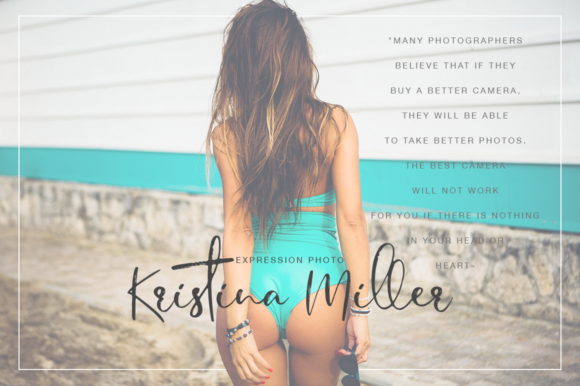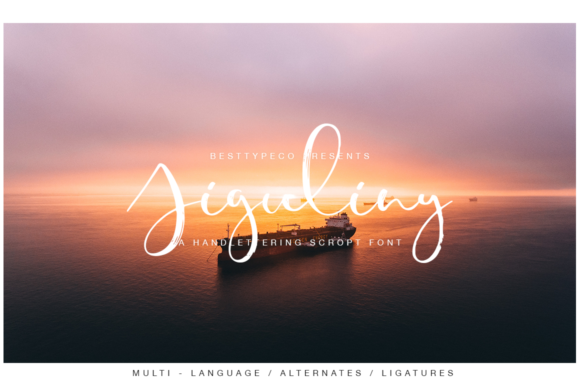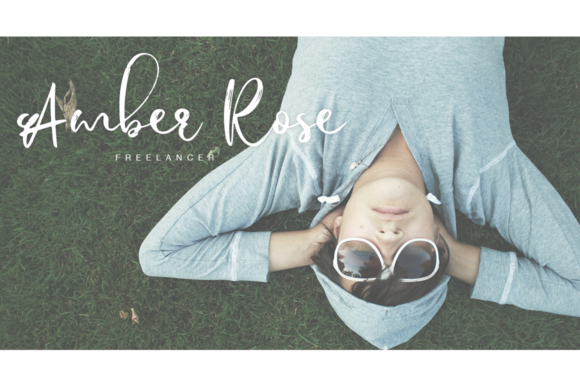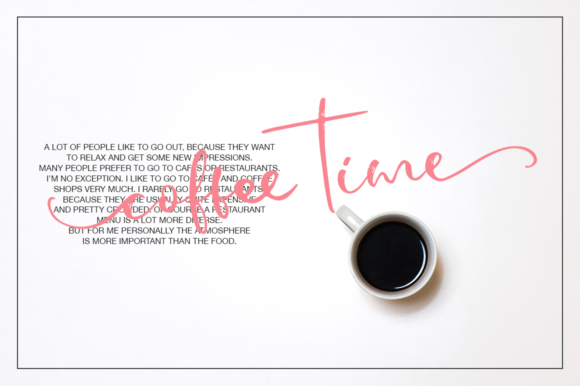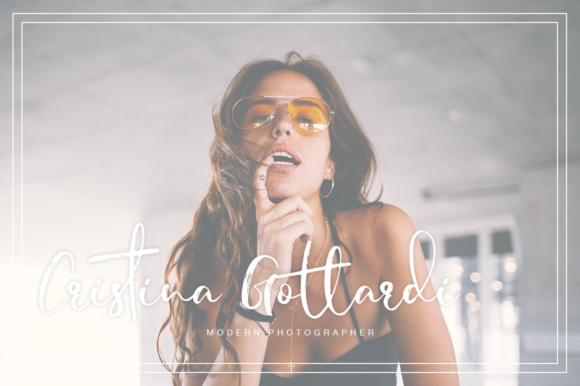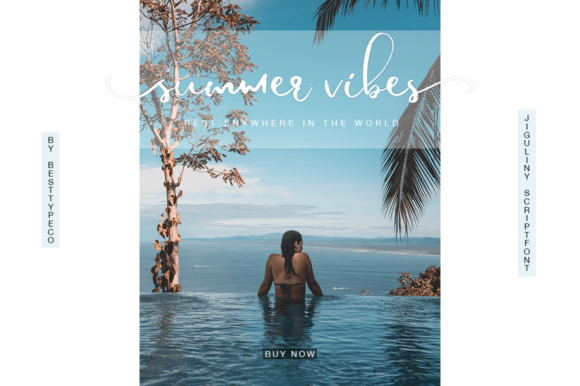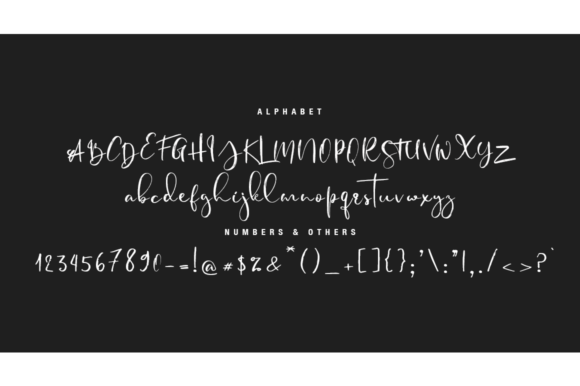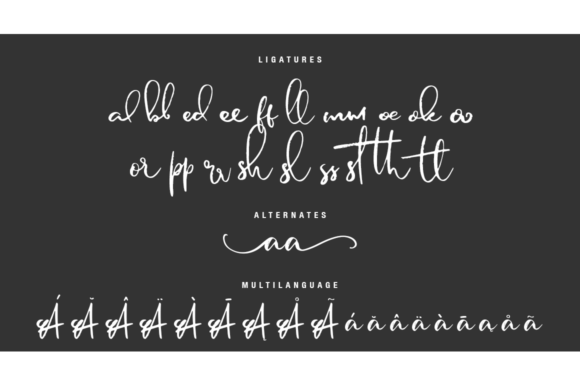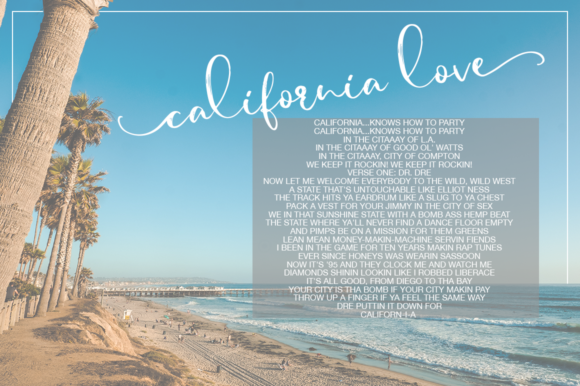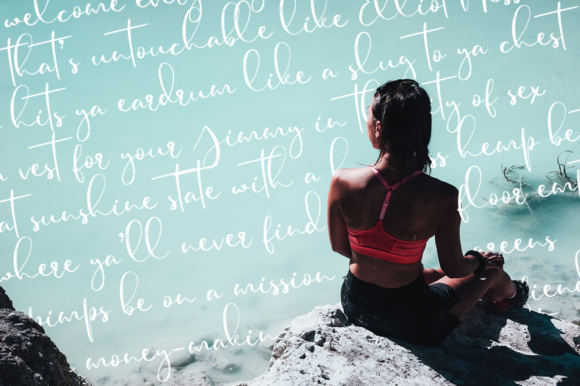
Jiguliny Font
About Jiguliny Font
The Jiguliny is a fresh, handmade, calligraphy font. It’s suitable for greeting cards, branding materials, business cards, quotes, and much more!